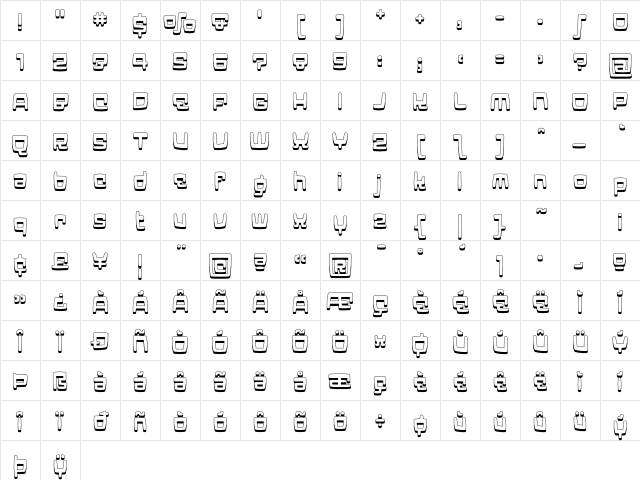
Elektron Shaded Free Font
Elektron Shaded
Style: Shaded
Elektron Family
Elektron Shaded
Design Context for Elektron
Elektron is a composed and adaptable typeface that performs quietly and consistently across a wide range of design contexts.